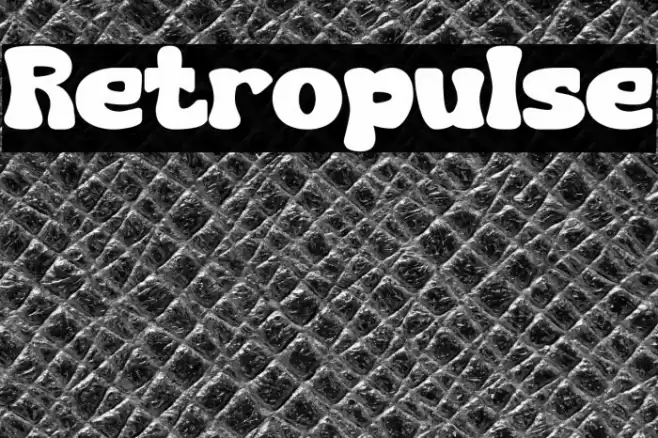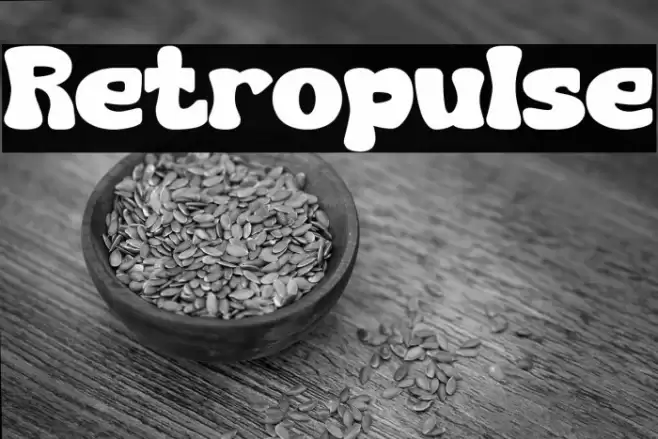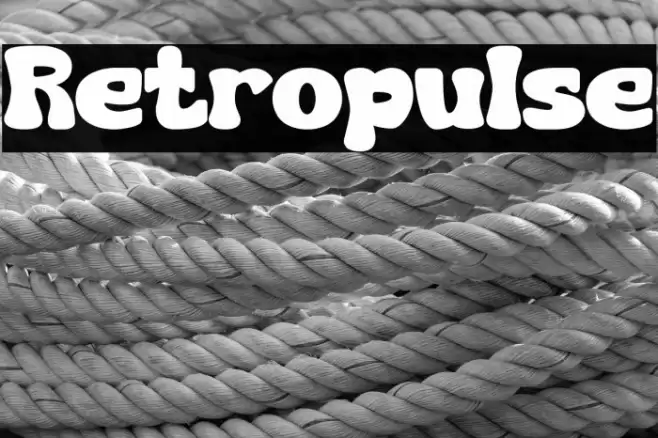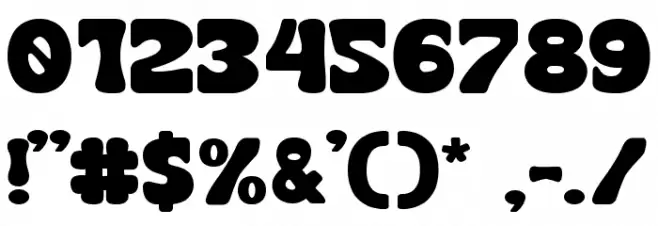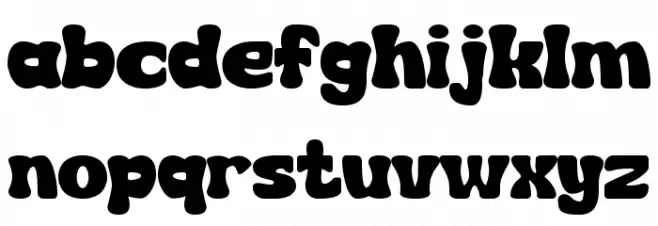
Retropulse Font
Retropulse Description
This font features a bold, playful design with rounded, bubbly characters that evoke a sense of fun and nostalgia. The letters are thick and have a soft, almost cartoonish appearance, making them stand out with a strong visual presence. The style is reminiscent of retro designs, with a modern twist that adds a unique flair. The characters are evenly spaced, providing a balanced look that is both eye-catching and easy to read. This font is perfect for projects that require a touch of whimsy and creativity.
A bold, playful font with rounded, bubbly characters and a retro-modern style from Uncategorized fonts.
- Proposed Projects: Ideal for children's books, playful branding, retro-themed posters, and creative advertising.
- Overall Style: Retro, Playful